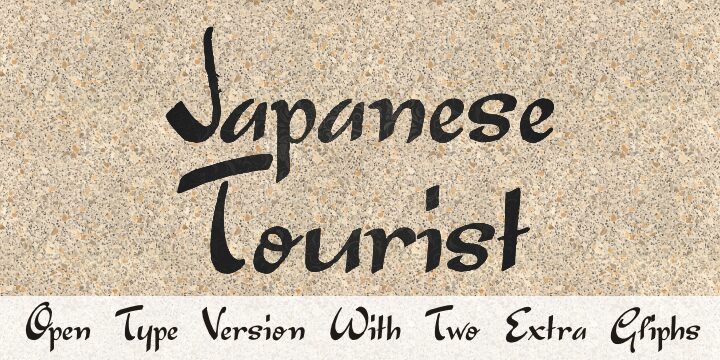
Japanese Tourist by Paulo W. is a free handwritten font with loose theatrical strokes, sudden changes of weight, long sweeping curves, and an improvised silhouette. Broad sweeps taper to sharp points across the uneven letters.
A music poster is its strongest setting, especially for punk, experimental, or indie acts, and the same raw movement suits album covers and streetwear graphics. On drink packaging or event signage, the lettering can become part of the illustration itself, resembling a name scrawled in ink across a label or wall rather than neutral copy.
Japanese Tourist